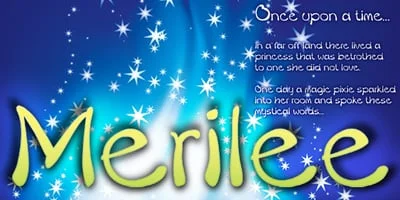
Merilee Font
Merilee Font is perfect for joyful celebration branding, cheerful party invitations, happy birthday materials, festive event signage, merry holiday campaigns, delightful children's books, playful entertainment logos, and uplifting celebration marketing materials. This joyous typeface excels in applications where happiness and cheerful celebration are essential.
What makes Merilee Font so exciting is its delightful ability to capture pure joy and festive celebration through bouncy, celebration-inspired letterforms that embody the infectious happiness of special occasions and the heartwarming spirit of joyful gatherings. The font features cheerful character shapes with festive influences and merry styling that evoke images of birthday parties, holiday celebrations, and the wonderful moments when people come together to share happiness. Its celebration-focused design philosophy combines festive authenticity with contemporary charm, making it perfect for entertainment brands seeking to convey pure joy, celebratory spirit, and connection to party communities and celebration culture.
Merilee Font belongs to the celebratory script font family, specifically designed for festive events and joyful celebration-themed branding applications. This typeface family emphasizes cheerful visual impact through celebration-inspired styling and joyful character elements, ensuring authentic festive presentation across various party planning and celebration-focused design projects.
Spread infectious joy with Merilee Font, a typeface that embodies the pure happiness of festive celebrations and joyful gatherings. This delightful font delivers exceptional cheer for celebration applications, featuring comprehensive character sets with party symbols and festive punctuation marks that capture the essence of joyful occasions and celebratory spirit. Its cheerfully crafted letterforms maintain excellent readability while preserving the authentic celebratory aesthetic across various sizes, from small party favors to large celebration venue displays. The font's distinctive joyful personality makes it invaluable for designers creating celebration brands, party materials, and festive content where conveying happiness, joy, and celebratory spirit is crucial for engaging party planners and celebration communities seeking authentic festive experiences and heartwarming, joyful celebration atmospheres that create lasting happy memories.